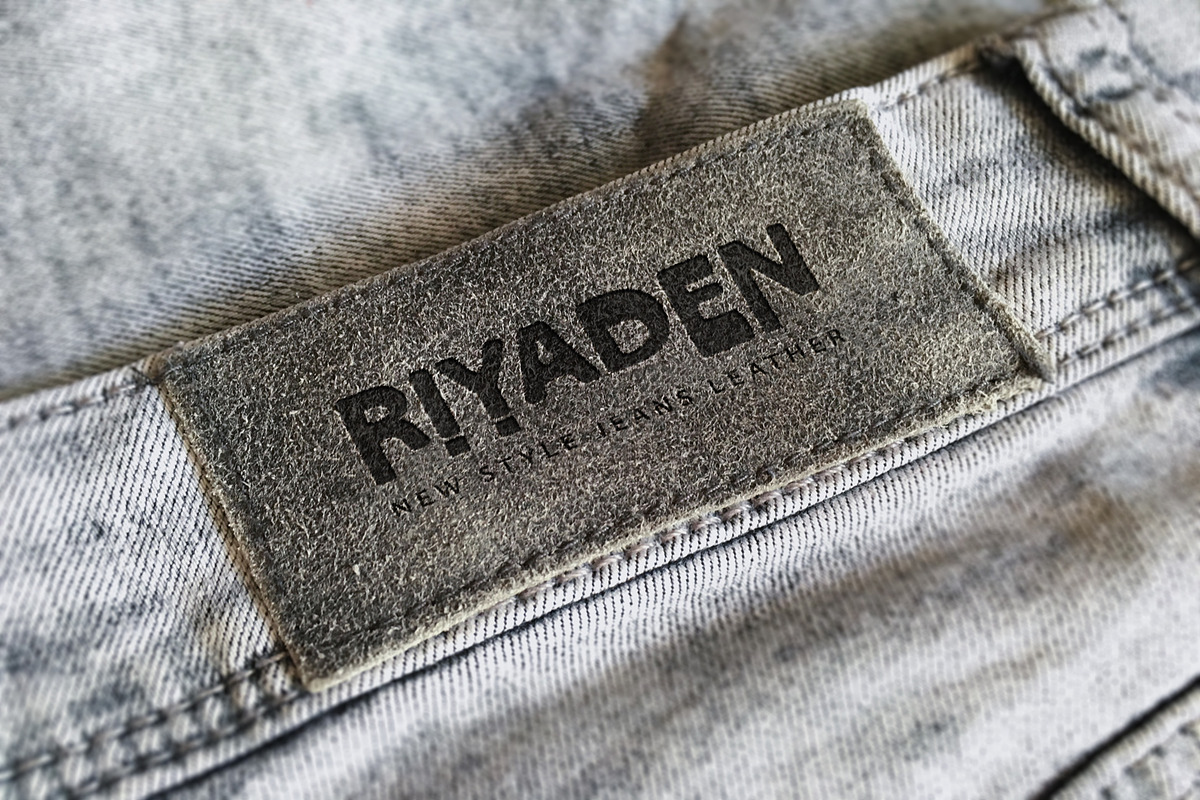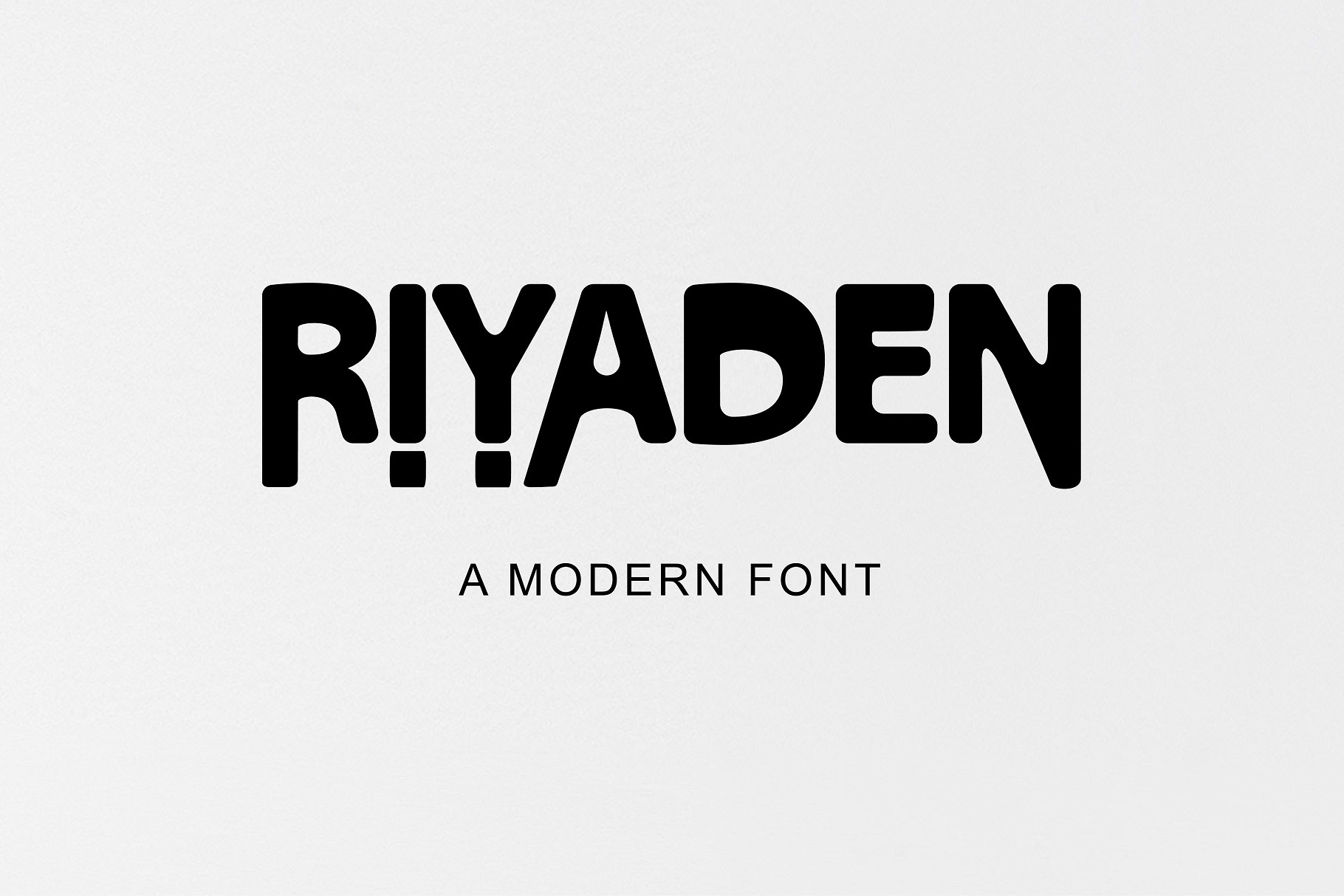
Riyaden Typeface –Elegant Serif Font
Introducing Riyaden Typeface, a modern and elegant serif font designed to make a bold statement. With its timeless aesthetic, refined curves, and high contrast strokes, Riyaden is perfect for those who want to add a touch of sophistication and professionalism to their creative projects.
Whether you're designing a luxury brand logo, crafting stylish headlines, creating editorial layouts, or presenting your company’s name in a strong and memorable way, Riyaden delivers with confidence. It balances classic serif charm with contemporary flair, making it suitable for both digital and print applications.
Uppercase & lowercase letters
Numerals & punctuation
Perfect for branding, headlines, logos, posters, business cards, and more
Ideal for: Luxury branding, fashion magazines, corporate identities, elegant packaging, wedding invitations, and modern editorial design.
Make your brand or project stand out with Riyaden Typeface – where elegance meets versatility.**